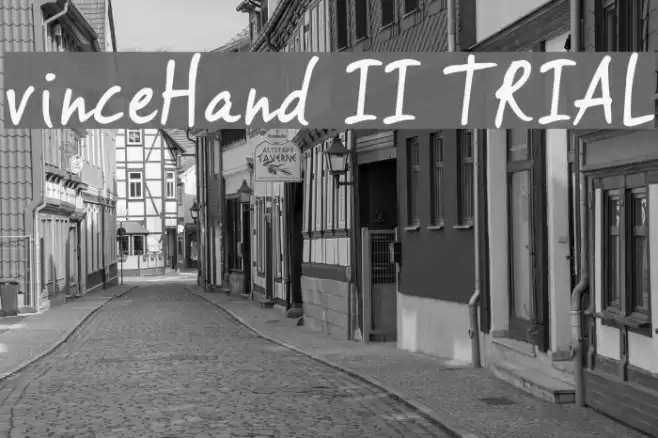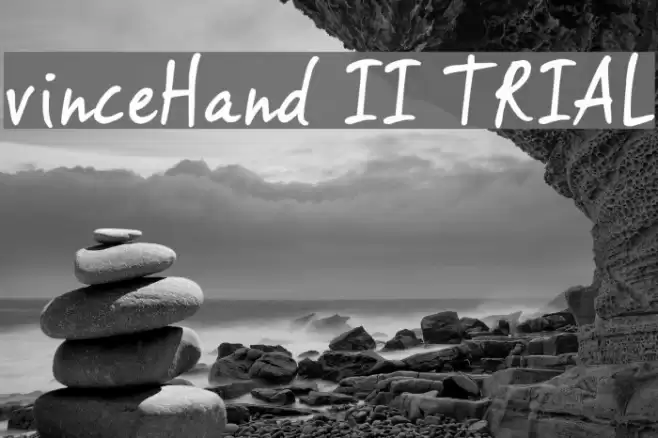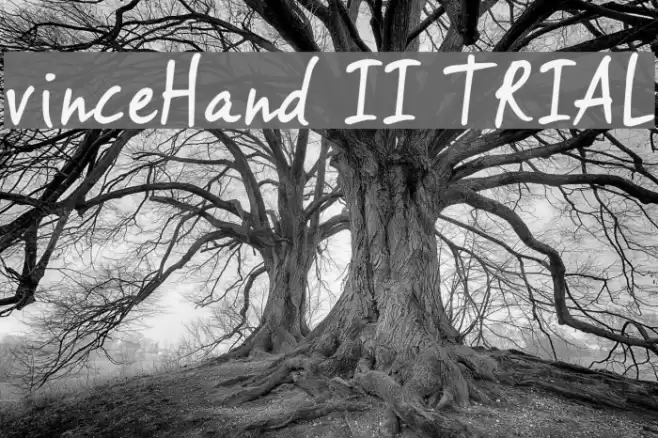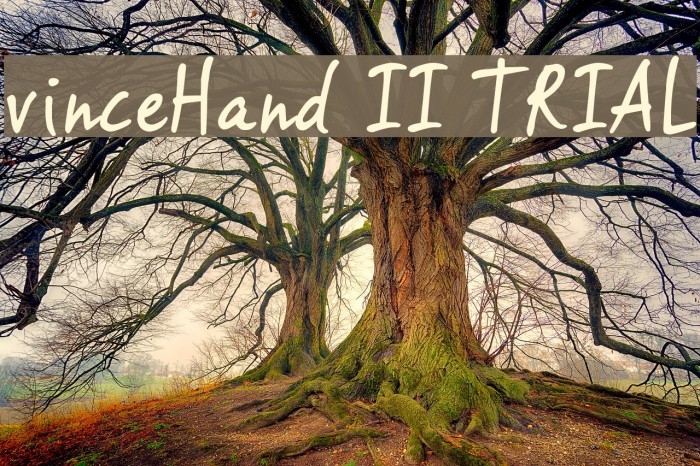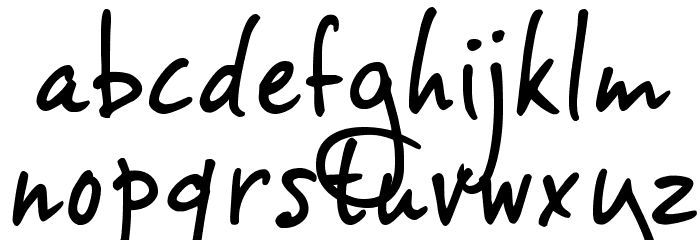
vinceHand II TRIAL Font
vinceHand II TRIAL Description
This font exudes a casual and personal touch, reminiscent of natural handwriting. The characters are fluid and slightly slanted, giving an informal and approachable feel. The uppercase letters are bold and confident, while the lowercase letters maintain a consistent flow with a touch of whimsy. The strokes are smooth and rounded, providing a sense of warmth and friendliness. The font's playful nature makes it ideal for projects that require a human touch, such as invitations, greeting cards, or personal branding. Its legibility is maintained across different sizes, making it versatile for various design needs.
A casual, handwritten-style font with smooth, rounded strokes and a playful character from Uncategorized fonts.
- Proposed Projects: Ideal for invitations, greeting cards, personal branding, and any project needing a human touch.
- Overall Style: Casual, Playful
- Use Case: Headlines, Logos, Invitations